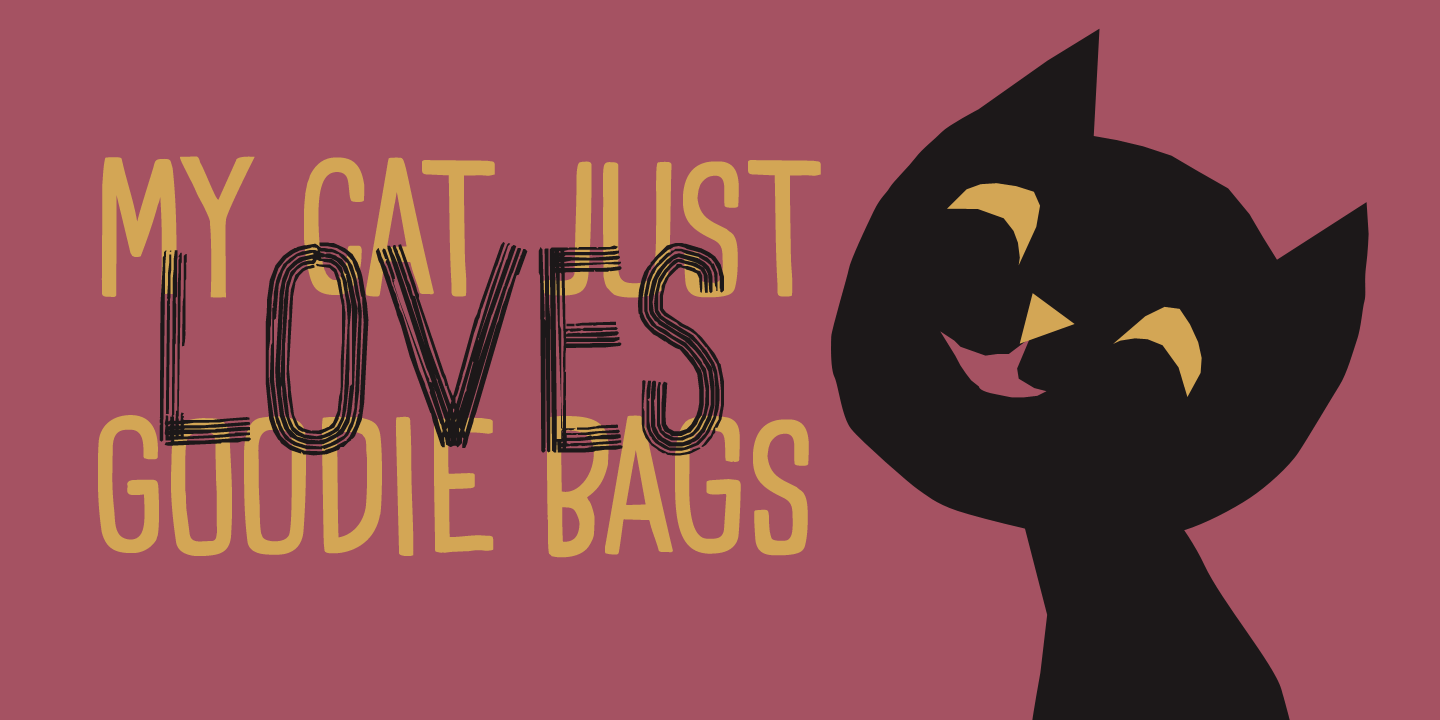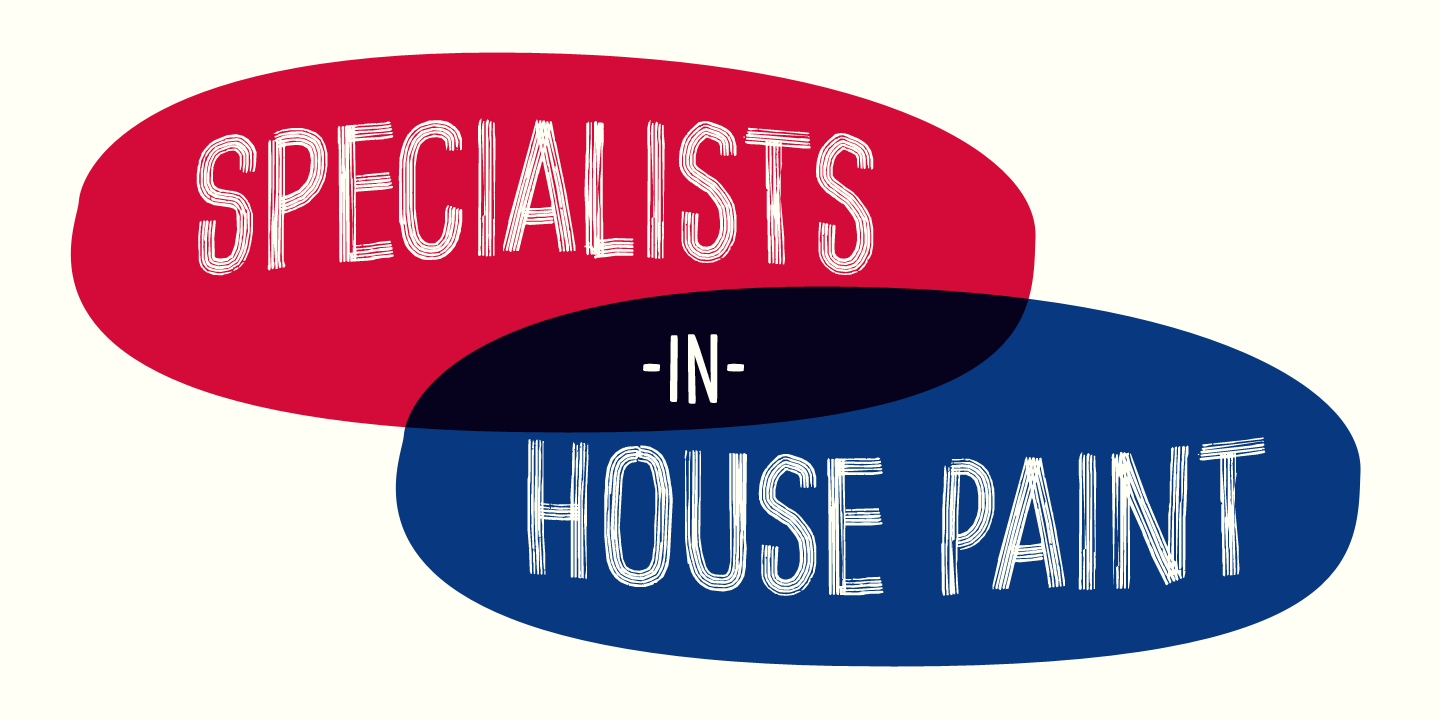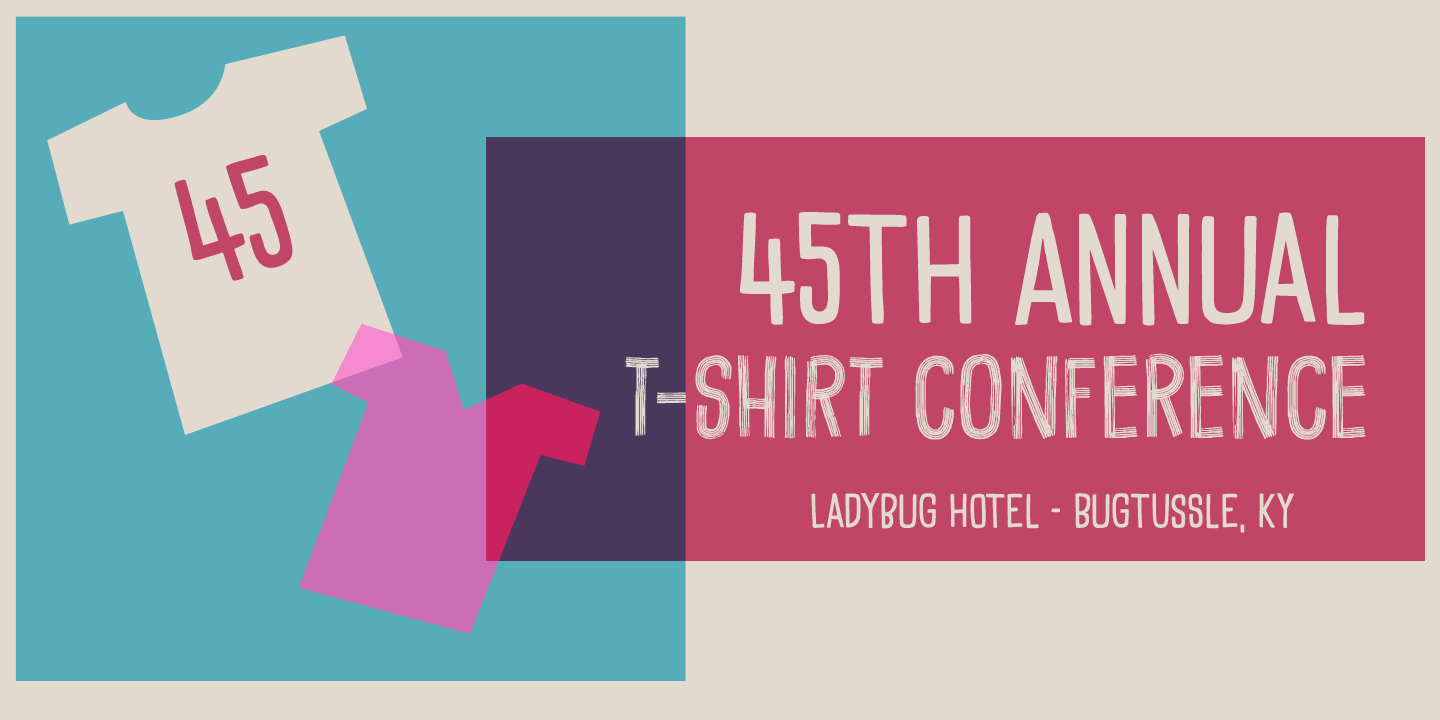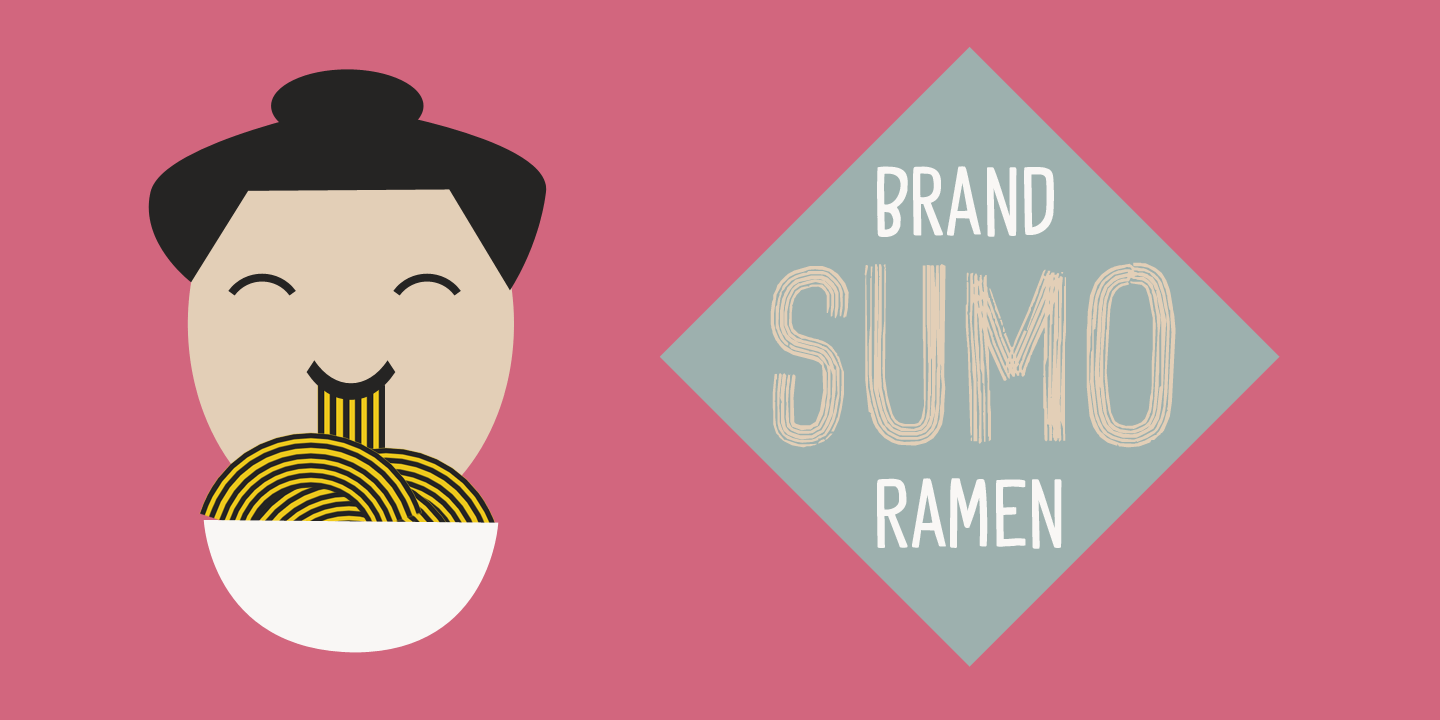
About Goodie Bag
The correct spelling, apparently, is Goody Bag. But I like it with an ?ie? ending. Goodie bag is a 4 member display font family. Use it for your book designs, magazines or websites – maybe even for the goodie bag you want to hand out!